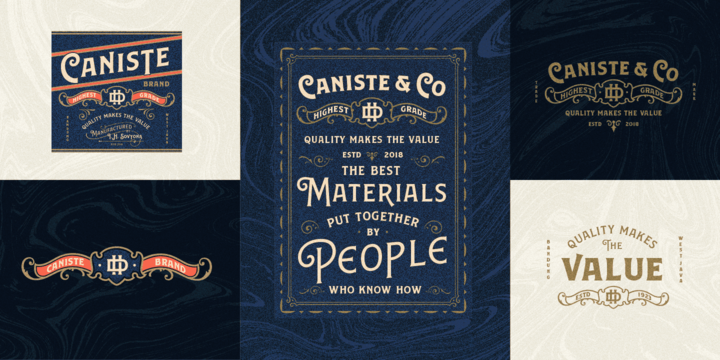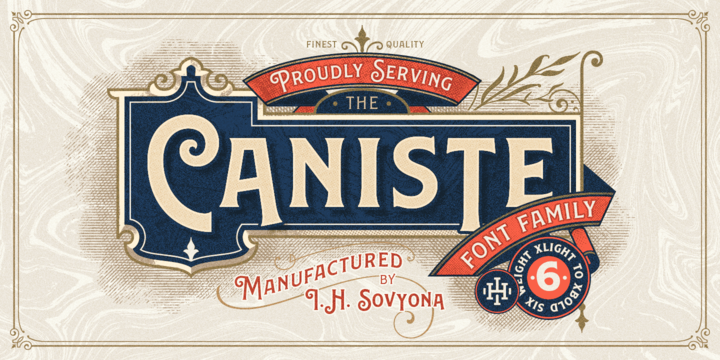
Caniste
Caniste Font Family
The vintage typeface returns with the Caniste typeface family. My passion for something with a vintage aesthetic is one reason I created Caniste. Inspired by antique ephemera such as cigar box labels that were common in the 19th century, it harkens back to the beauty of typographic design at that time.
Caniste is Inspired by antique ephemera such as cigar box labels that were common in the 19th century, it harkens back to the beauty of typographic design at that time.